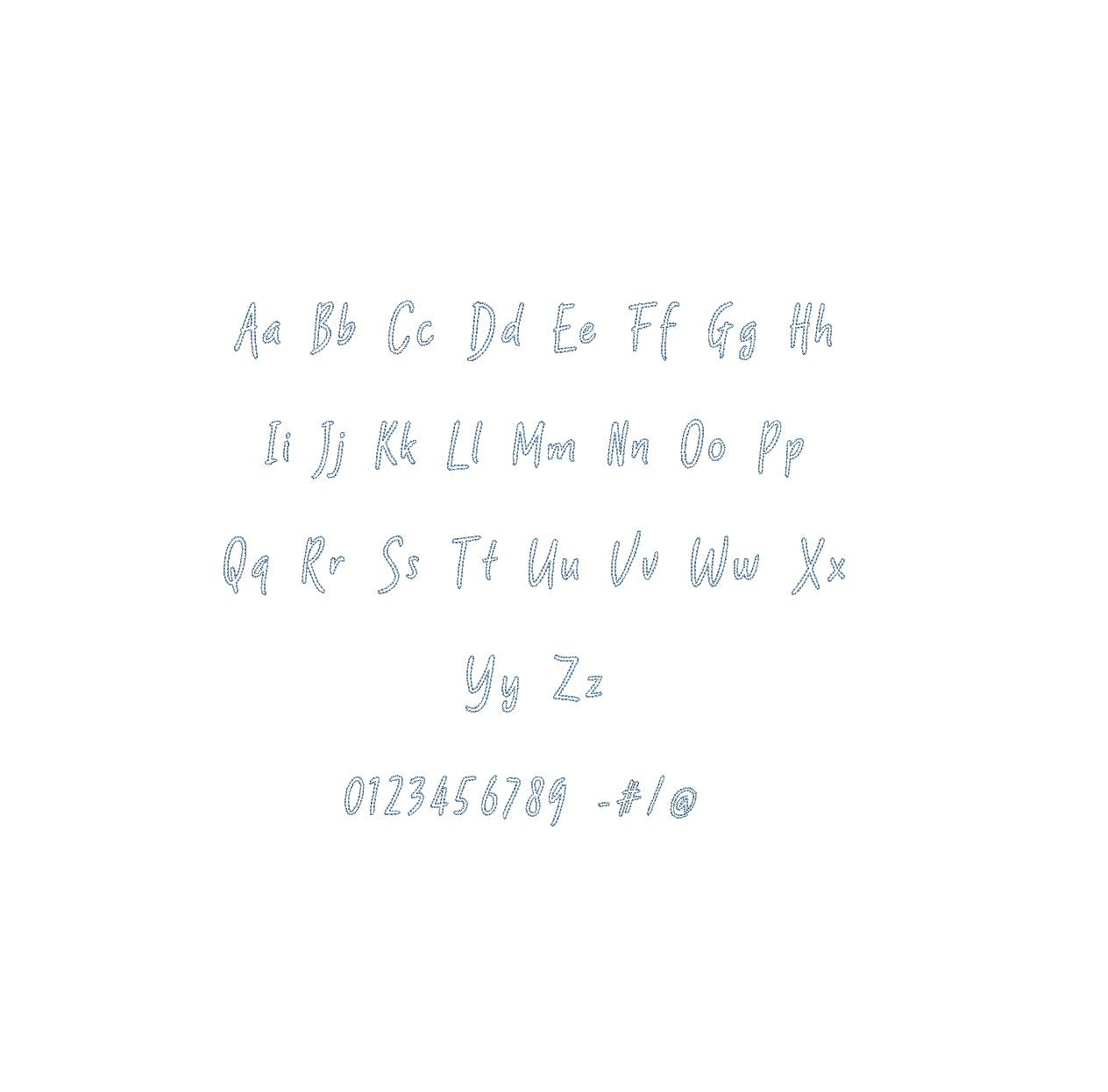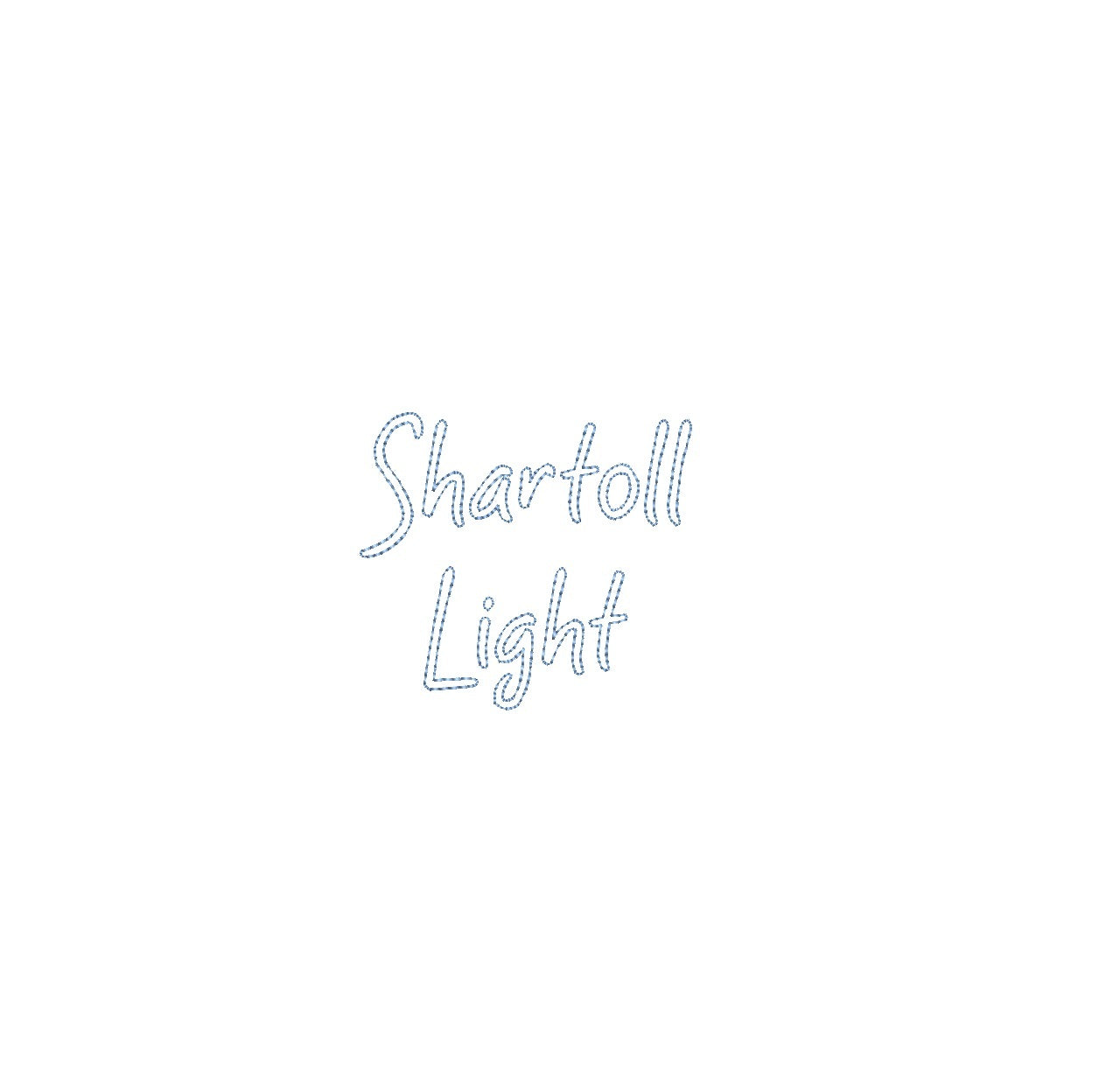
Elevate your embroidery projects with the Shartoll Light Bean Outline ESA font, compatible with Wilcom Studio e4.5.6 and Hatch 3 versions and up. This font effortlessly blends lightness and precision, infusing your designs with a unique aesthetic perfect for delicate monograms and embellishments. Experience seamless compatibility for exceptional results and unleash a new level of stitching finesse. Transform your creations into embroidery masterpieces that radiate elegance and creativity. Elevate your projects with the Shartoll Light Bean Outline ESA font and make your embroidery truly refined and captivating.